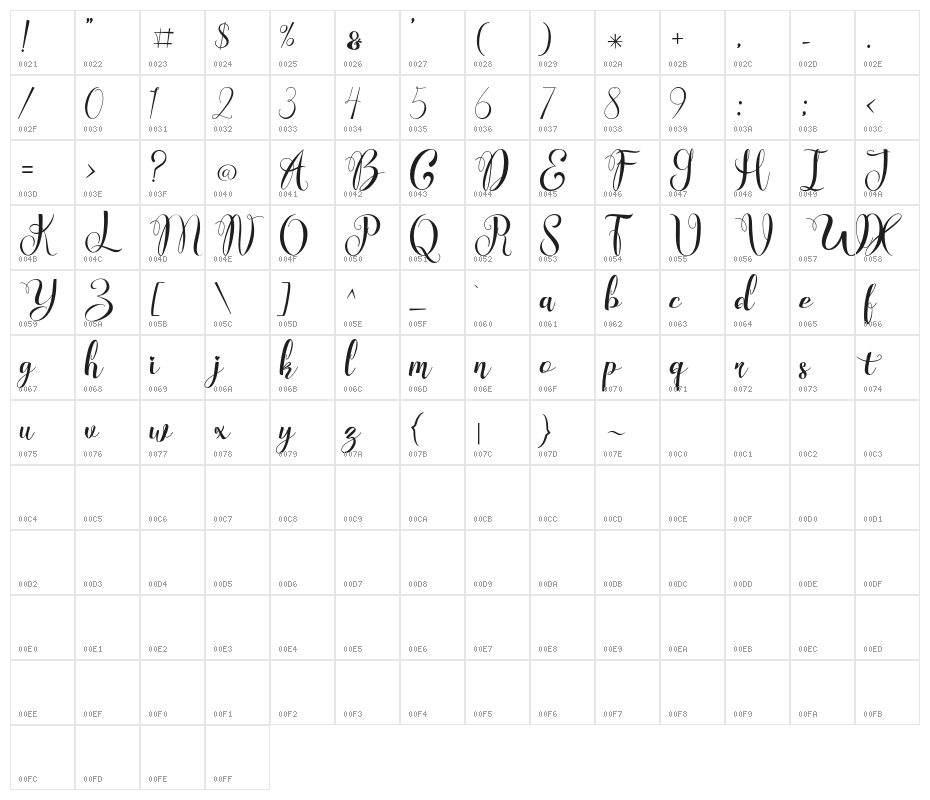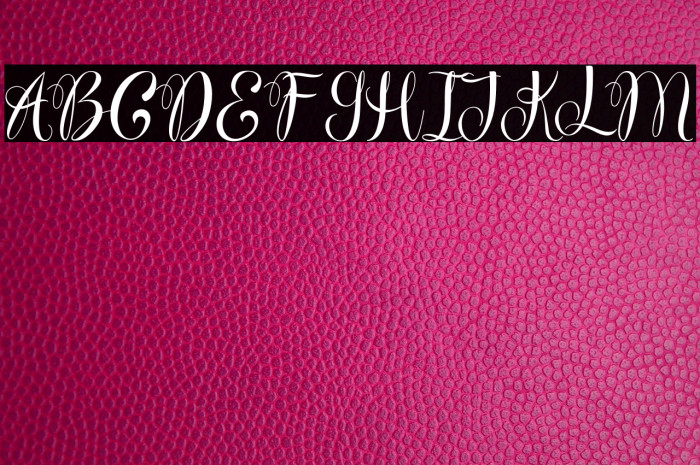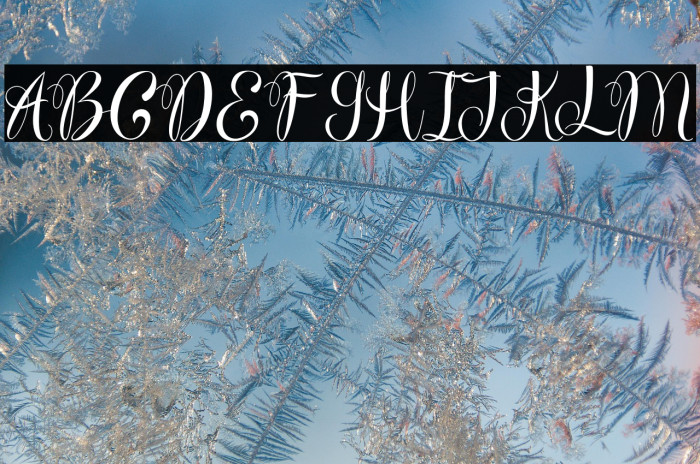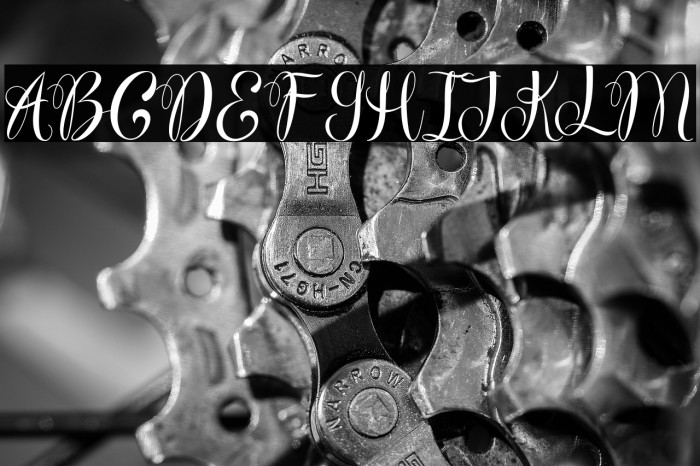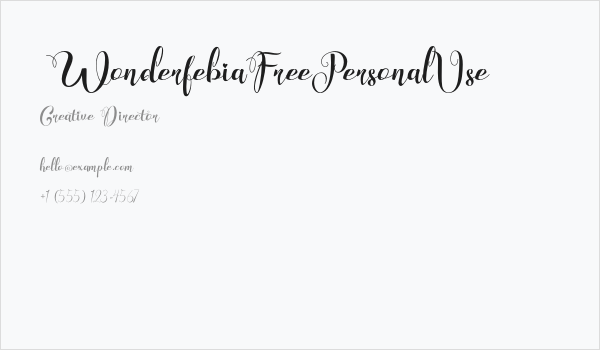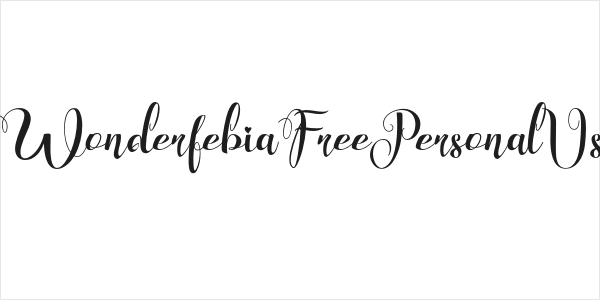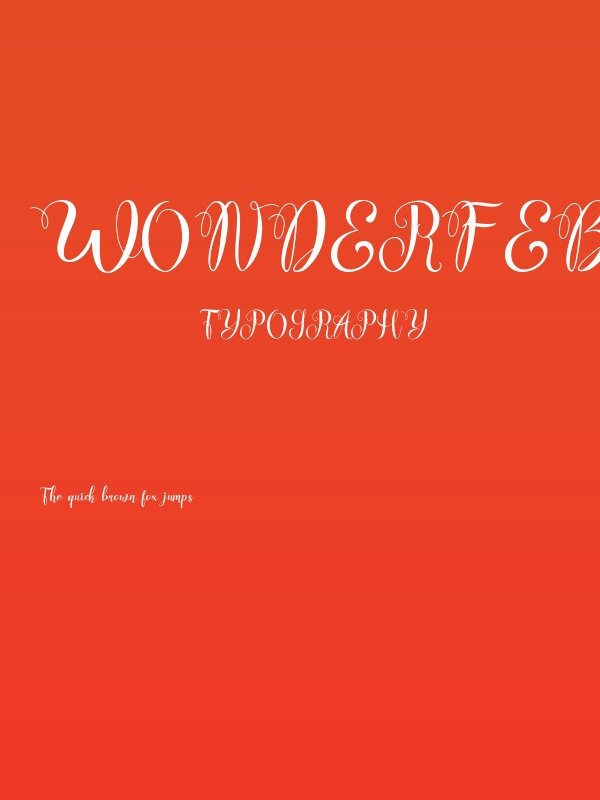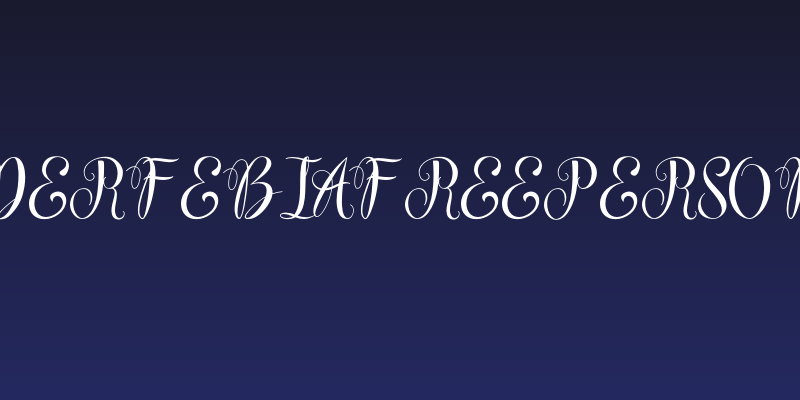
WonderfebiaFreePersonalUse Font
WonderfebiaFreePersonalUse Description
This font features an elegant and flowing script style, characterized by its ornate and decorative letterforms. The uppercase letters are particularly intricate, with swirling embellishments that give a sense of sophistication and flair. The lowercase letters maintain a smooth, cursive flow, making them highly readable while still retaining a touch of elegance. The numerals are slender and slightly elongated, complementing the overall graceful aesthetic. Special characters are designed with the same attention to detail, ensuring consistency across all glyphs. This font is perfect for projects that require a touch of class and elegance.
| Proposed Projects | Ideal for wedding invitations, luxury branding, elegant stationery, and decorative headlines. |